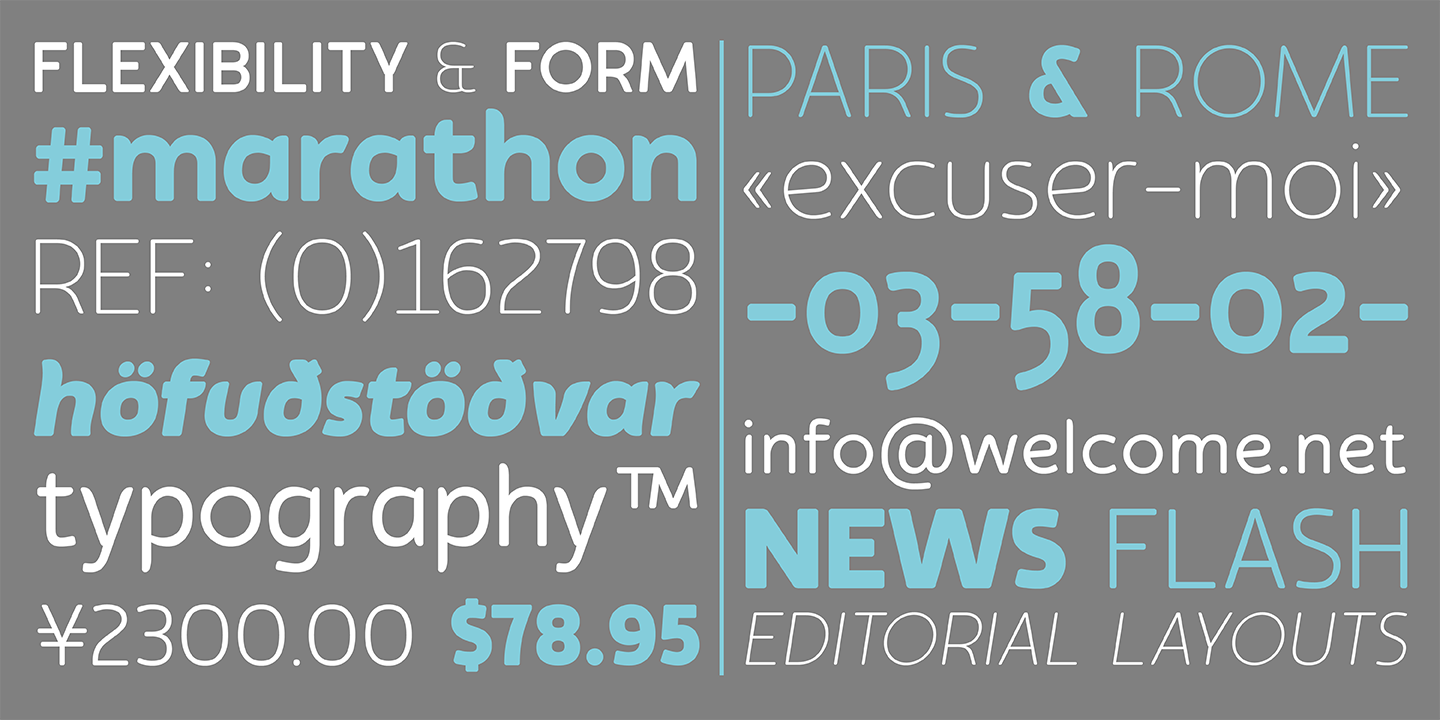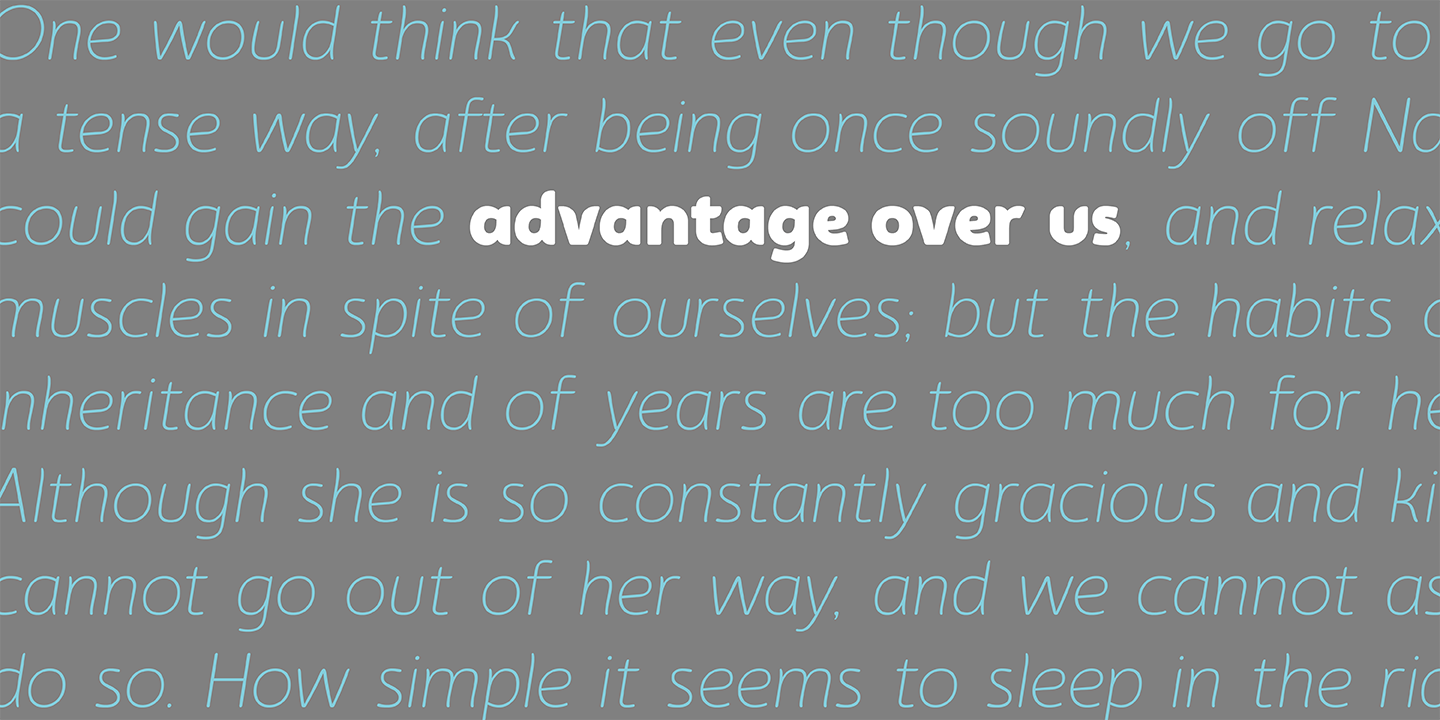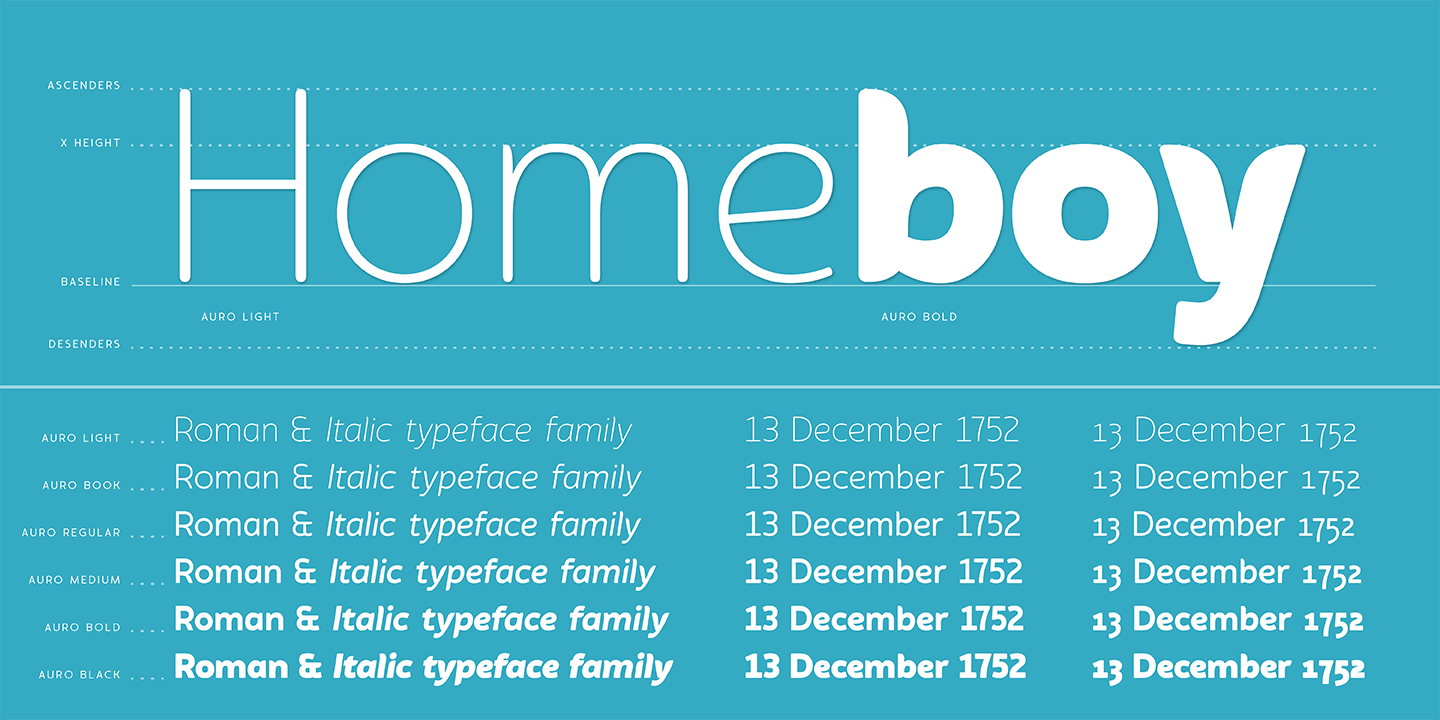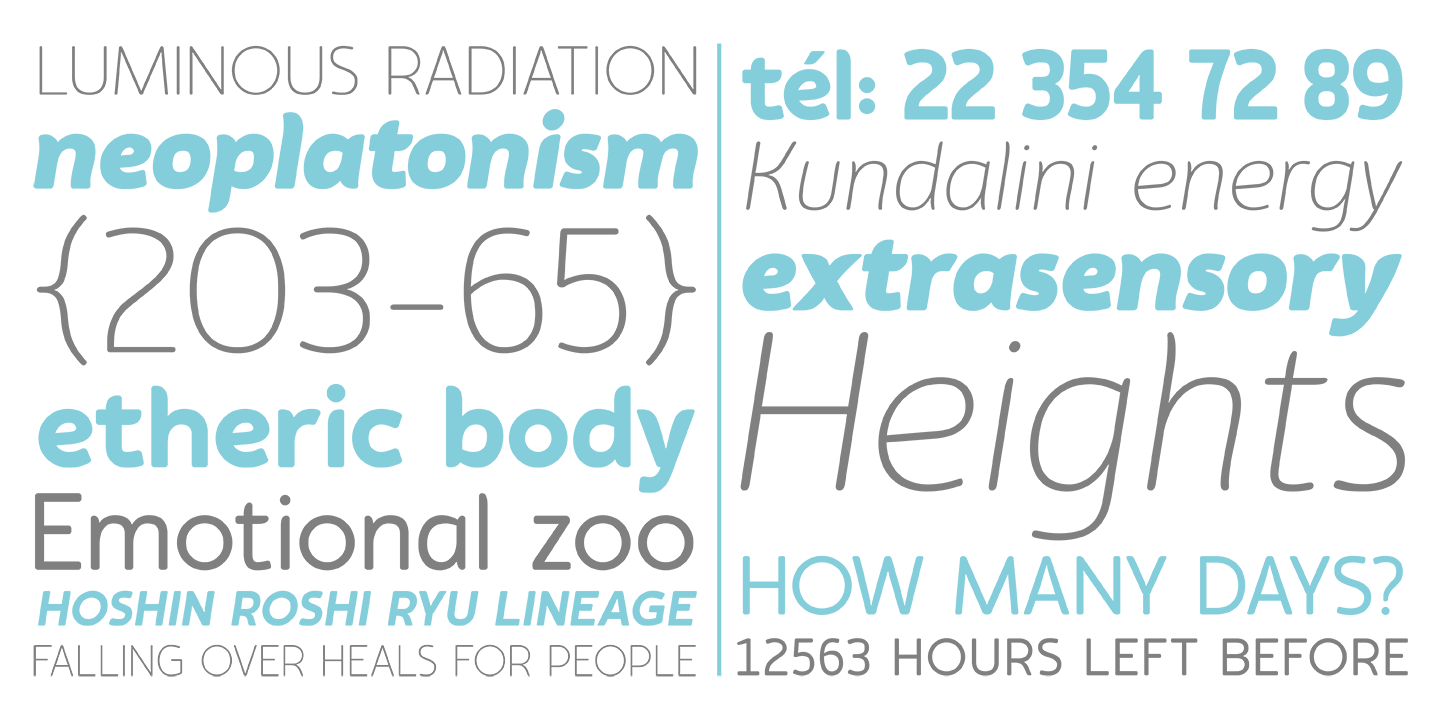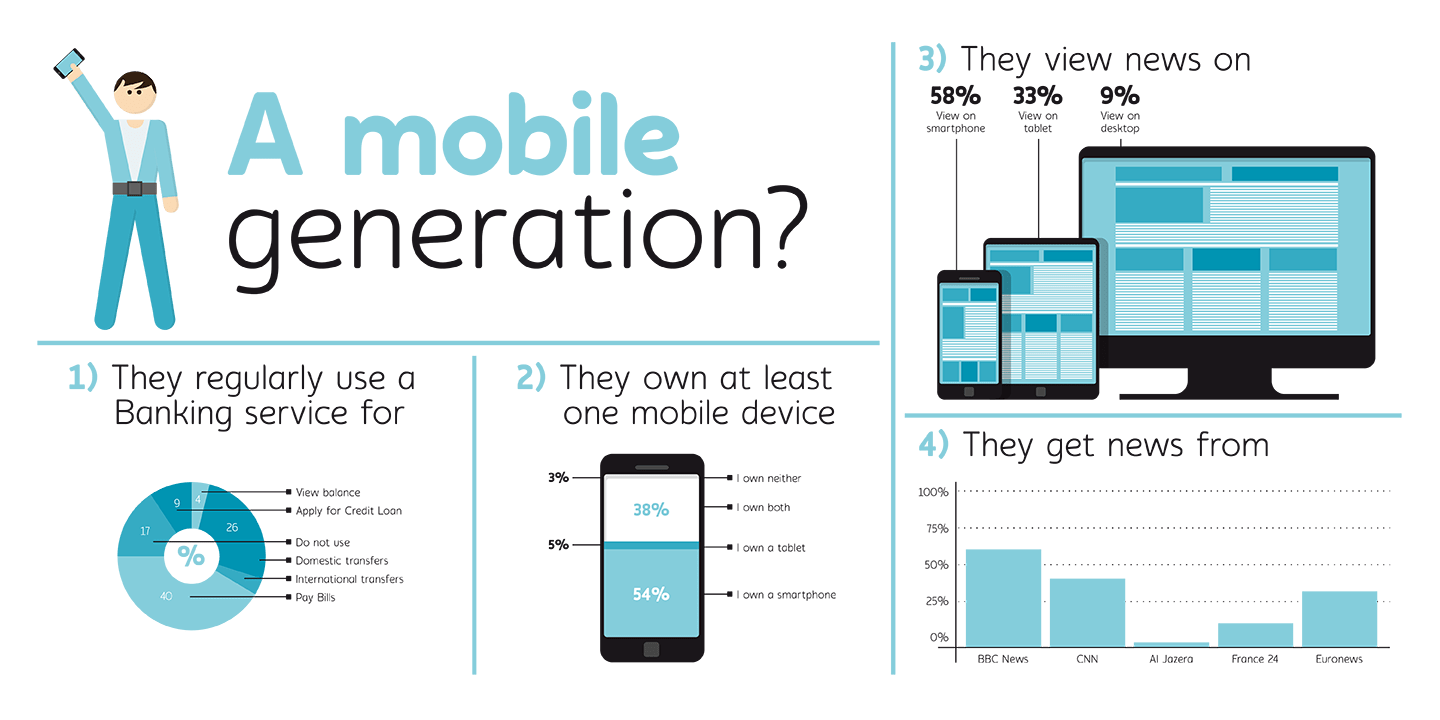
Auro is a friendly, rounded sans serif that was created as a contemporary typeface solution for branding, editorial use or any other application that requires legibility with a touch of personality.